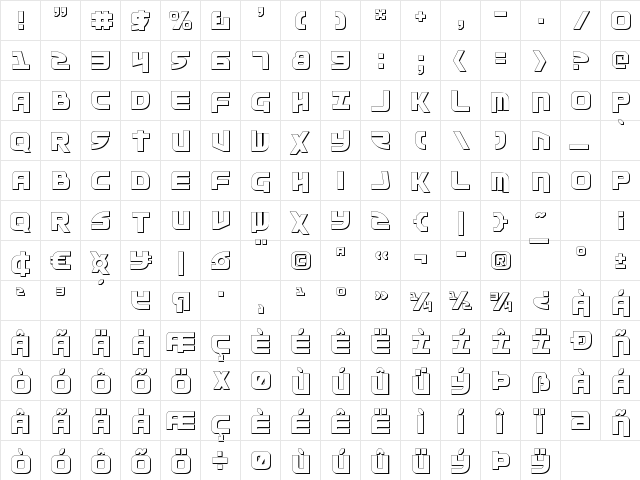
Moltors Outline Outline
Design Context for Moltors Outline Typeface
Moltors Outline brings ornamental detail and strong personality to headlines and identities, where visual impact matters more than quiet functionality.
Font Pairing: Pair with a clean neutral sans-serif for body copy to let Moltors Outline's character lead without overwhelming the composition.
Pro Tip: Treat Moltors Outline as the centrepiece of your typographic hierarchy. One strong heading set in a decorative face can carry an entire layout.